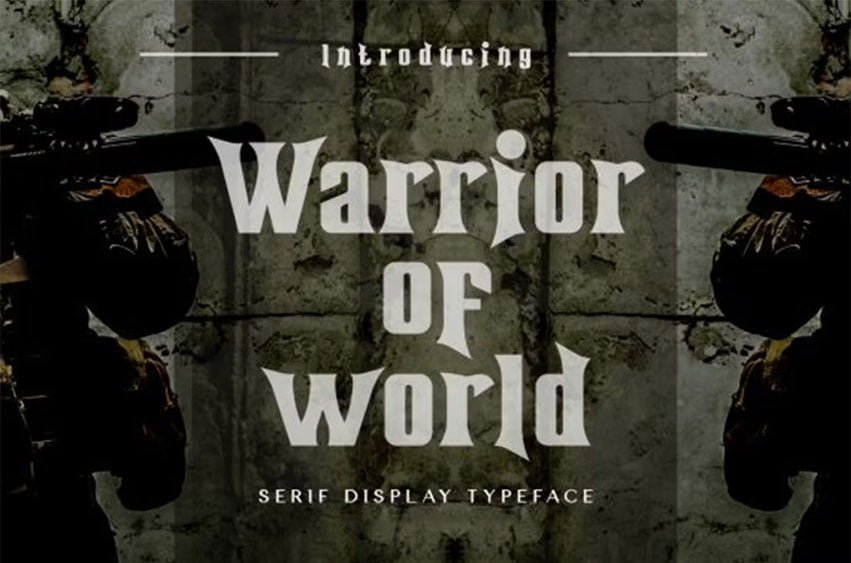
Warrior of World Font is a display modern serif. it has unic construction. The simplicity and smoothness of its forms is combined with the sharpness and suddenness of the details. There are two style hollow and regular. The font is intended for short inscriptions and texts and is adapted for use on the screen.